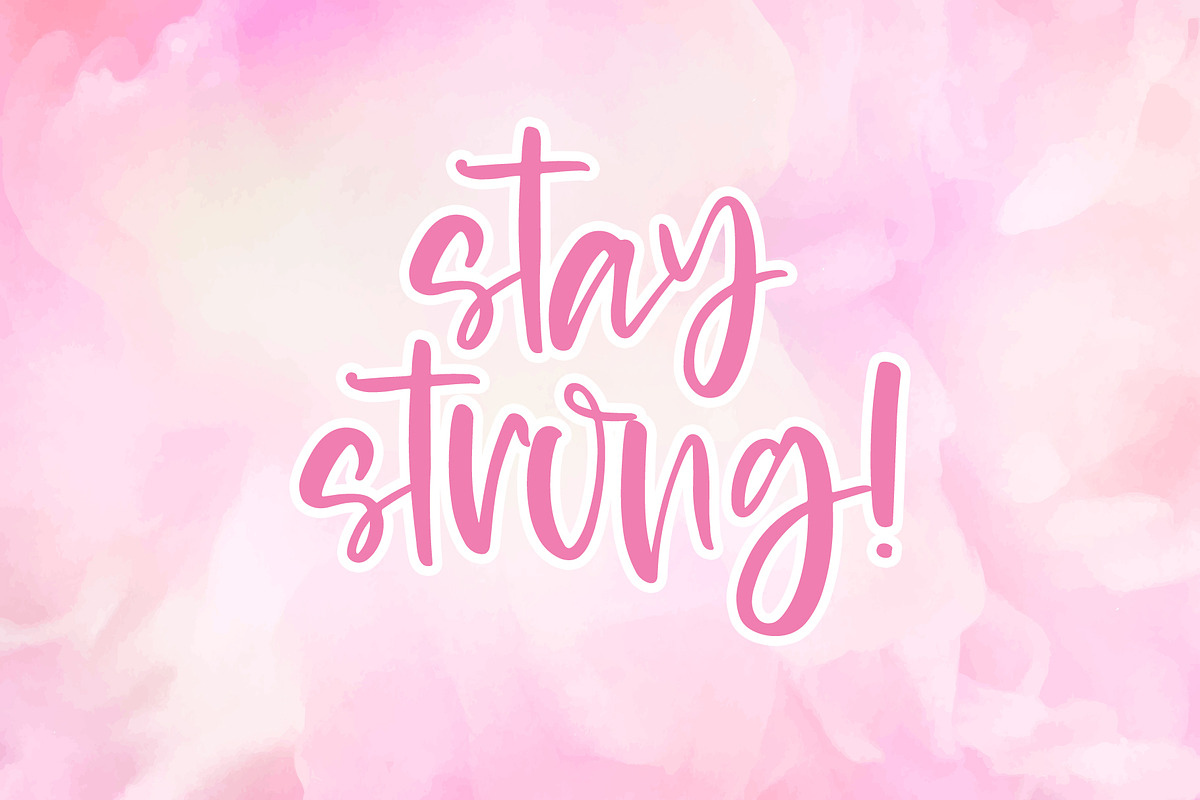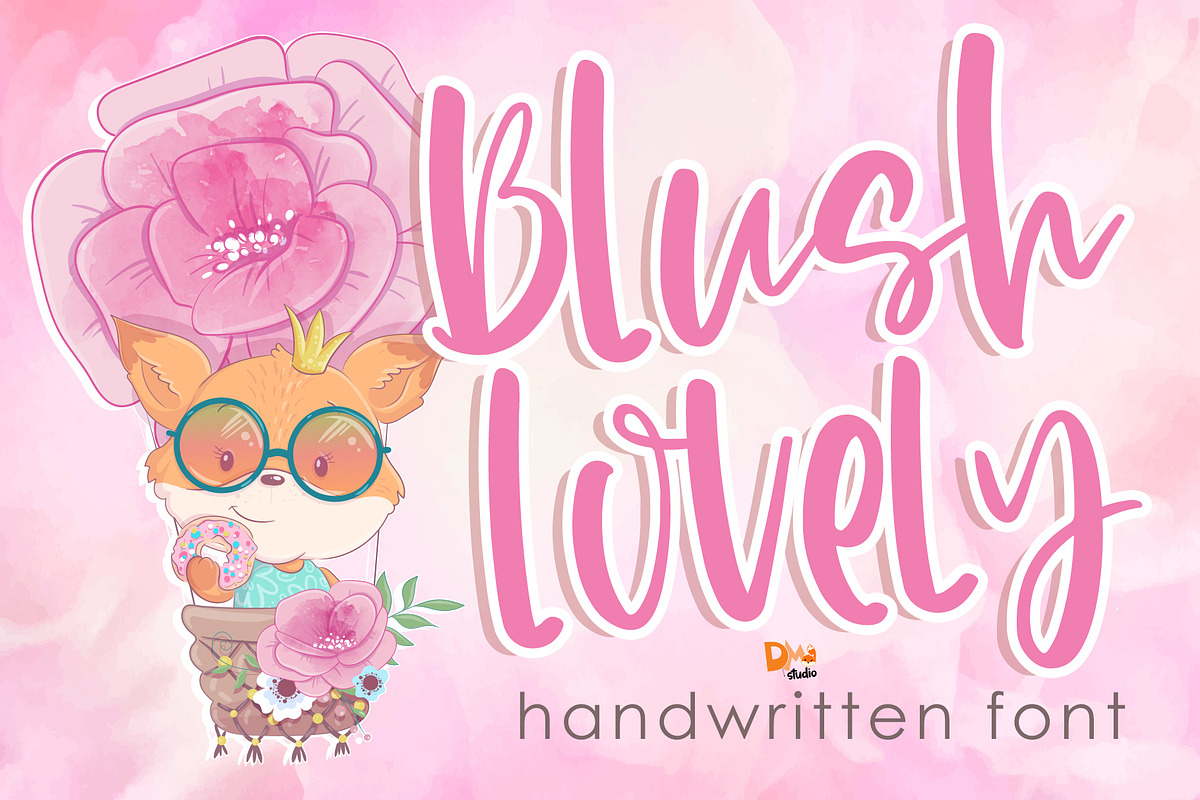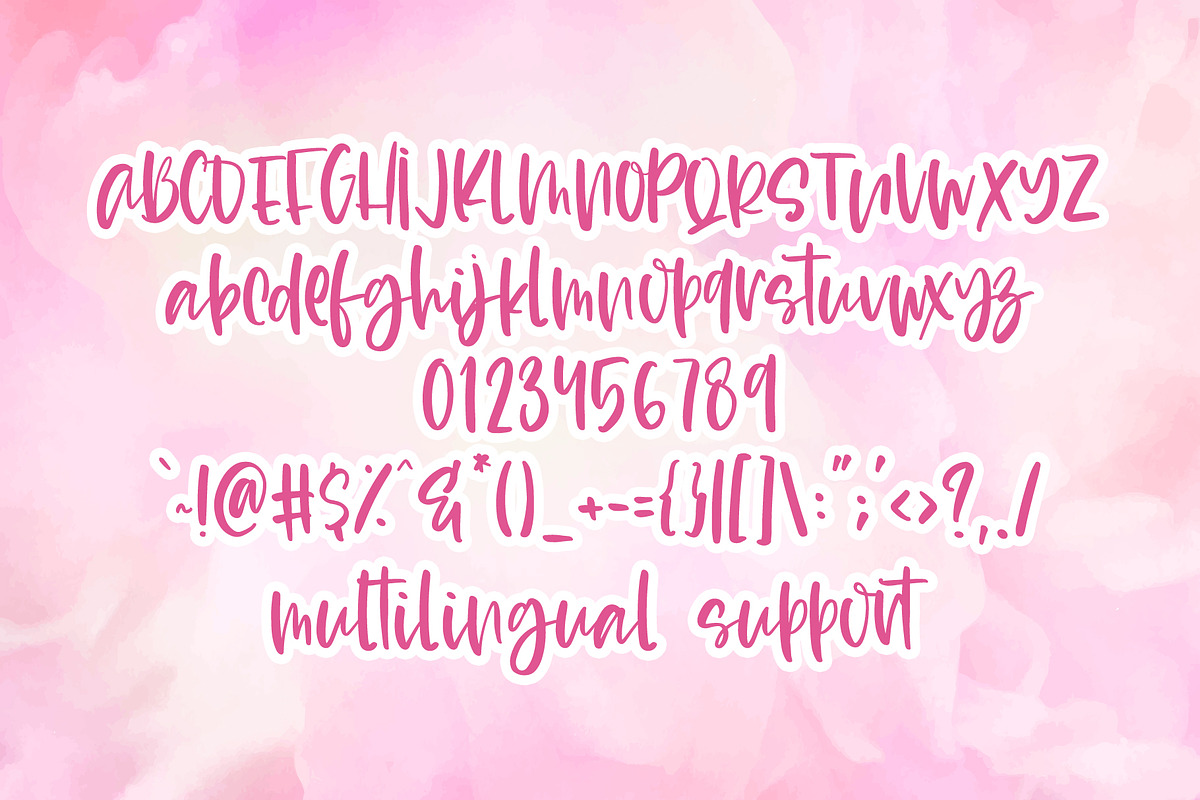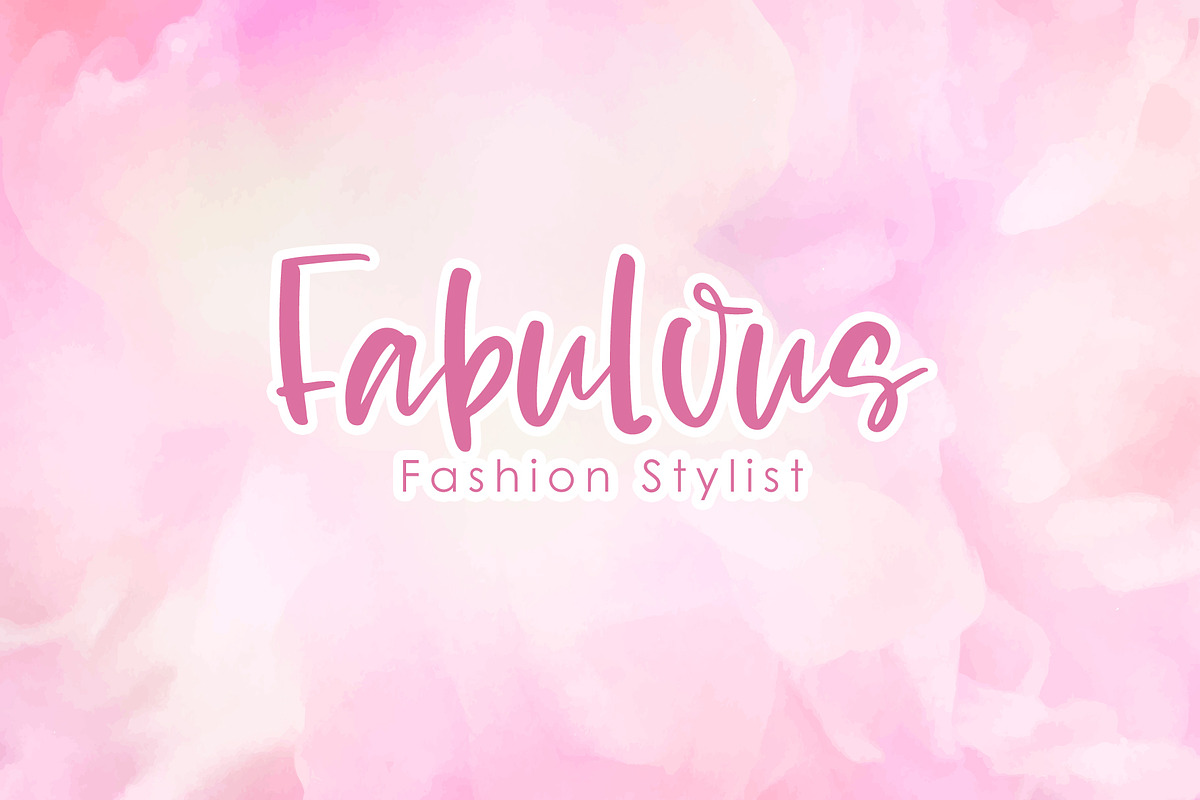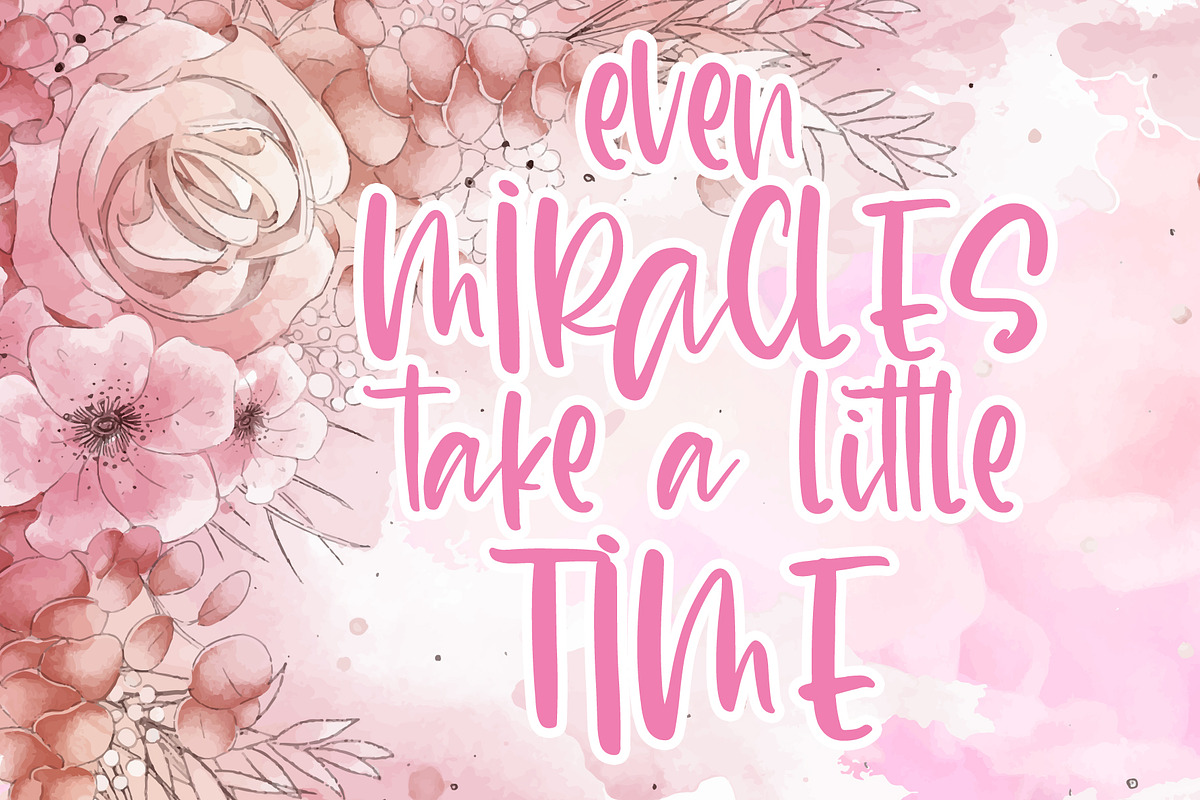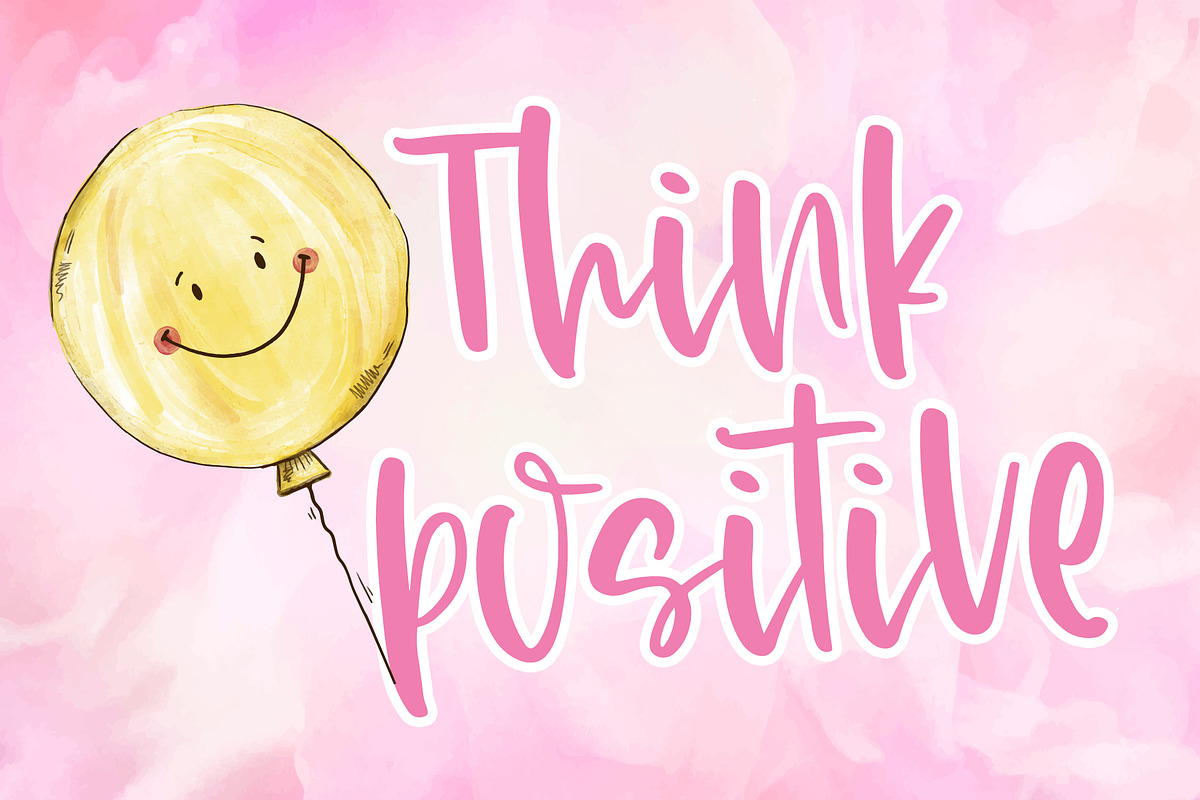
Blush Lovely - Handwritten Font
Blush Lovely the sweet and lovely handwritten font. So heartwarming and make your lovely design more gorgeous!
Blush Lovely - Handwritten Font by Dm Studio fits naturally into Branding, posters, packaging, typography.